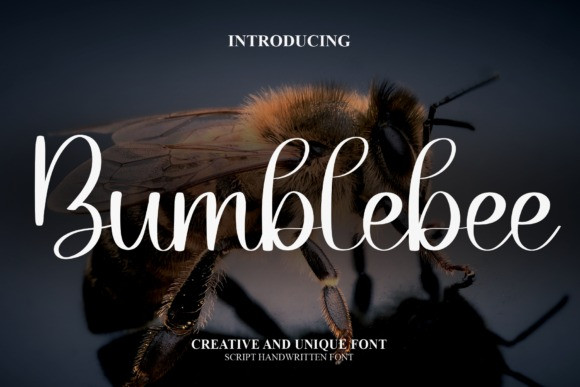
Bumblebee Font
Bumblebee Font is a sweet handwritten font that was crafted with great care to produce the expected results. This font can be used to write various kinds of products according to their individual needs.